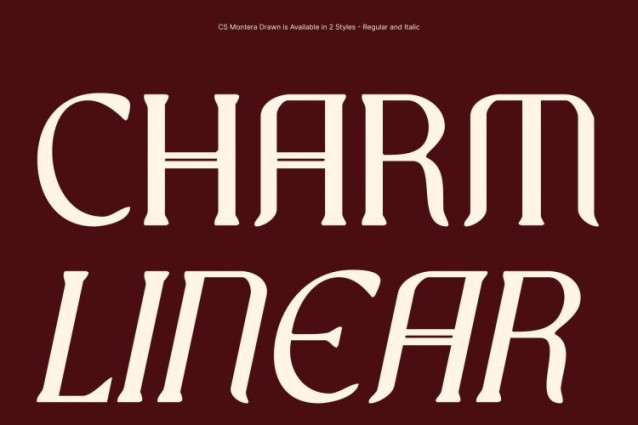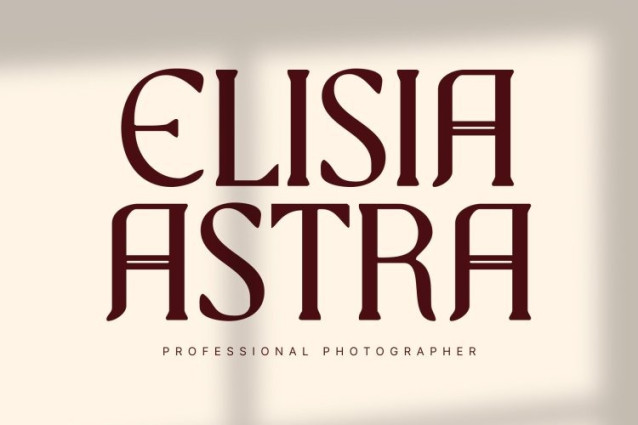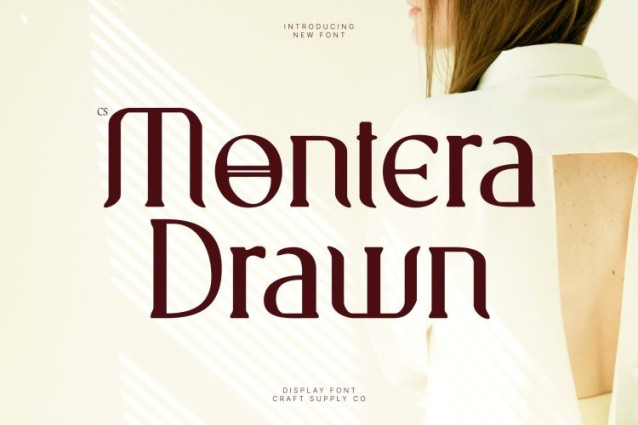
CS Montera Drawn Font
CS Montera Drawn Font This is a modern classic serif display font inspired by the artistry of ancient Greek letterforms. Its serif shapes echo the grandeur of stone-carved inscriptions strong, graceful, and enduring enhanced with subtle hand-drawn texture that adds warmth and expressive depth to its refined structure.
Where History Meets Modern Precision
Blending majestic historical influence with clean, contemporary styling, This achieves a harmonious balance between tradition and modernity. The drawn details soften the formal structure, creating a typeface that feels cultured, sophisticated, and visually engaging while remaining clear and readable.
Elegant, Versatile, and Culturally Rich
Ideal for luxury branding, editorial layouts, book covers, artistic posters, and heritage-inspired projects, this font conveys authority, elegance, and cultural depth. Its classical foundation speaks to legacy and refinement, while its modern execution ensures versatility across both professional and creative applications.
Timeless Grandeur with Modern Simplicity
This font bridges ancient inspiration and contemporary design with confidence. Its elegant proportions, sturdy serif forms, and handcrafted character create a powerful visual language perfect for designers seeking typography that feels sophisticated, meaningful, and enduring.